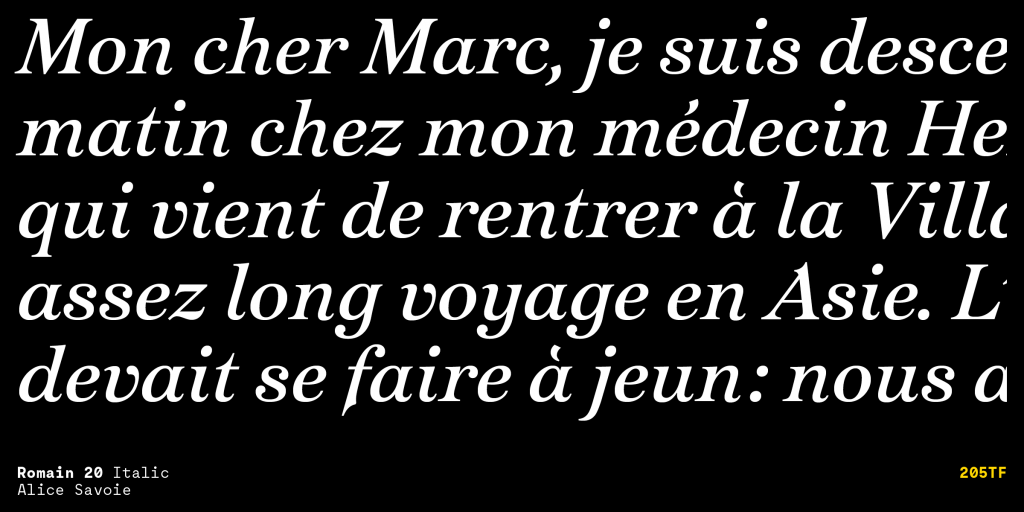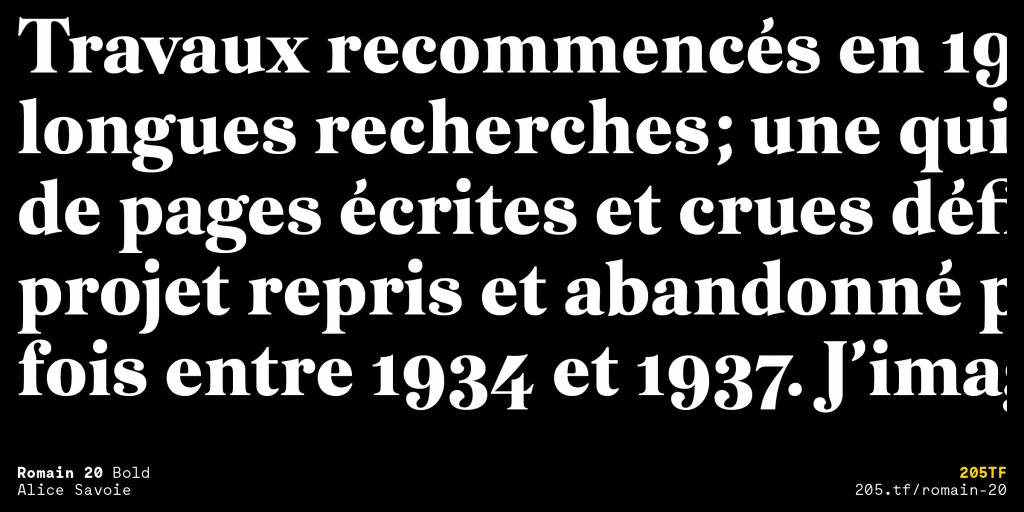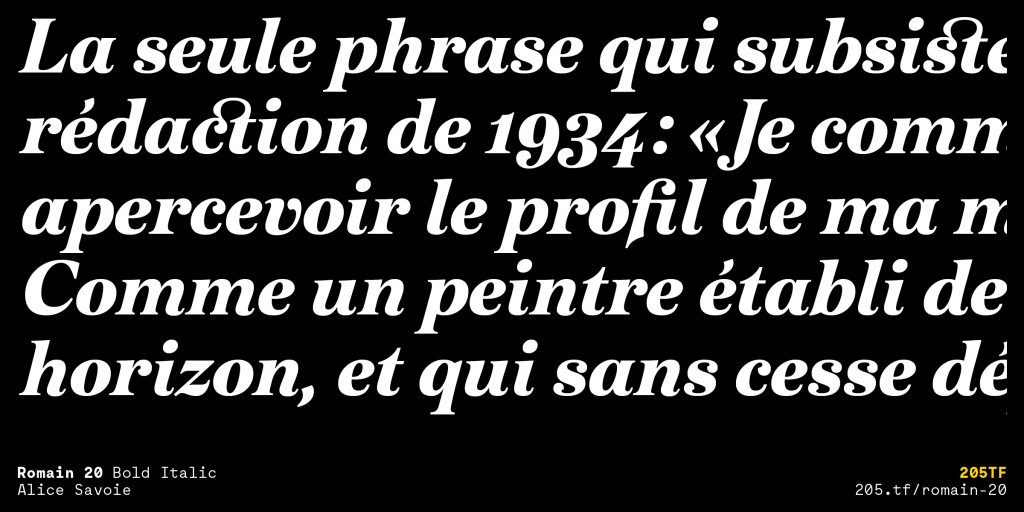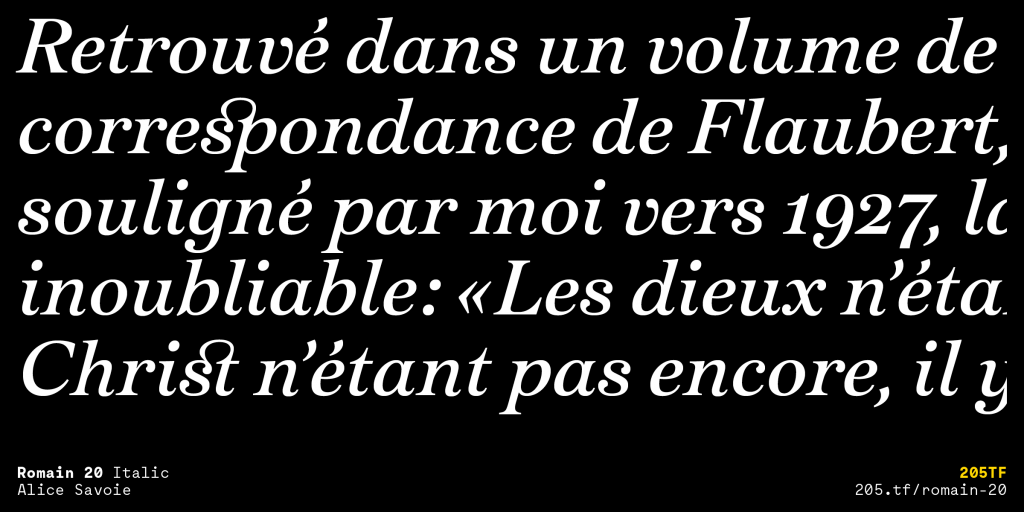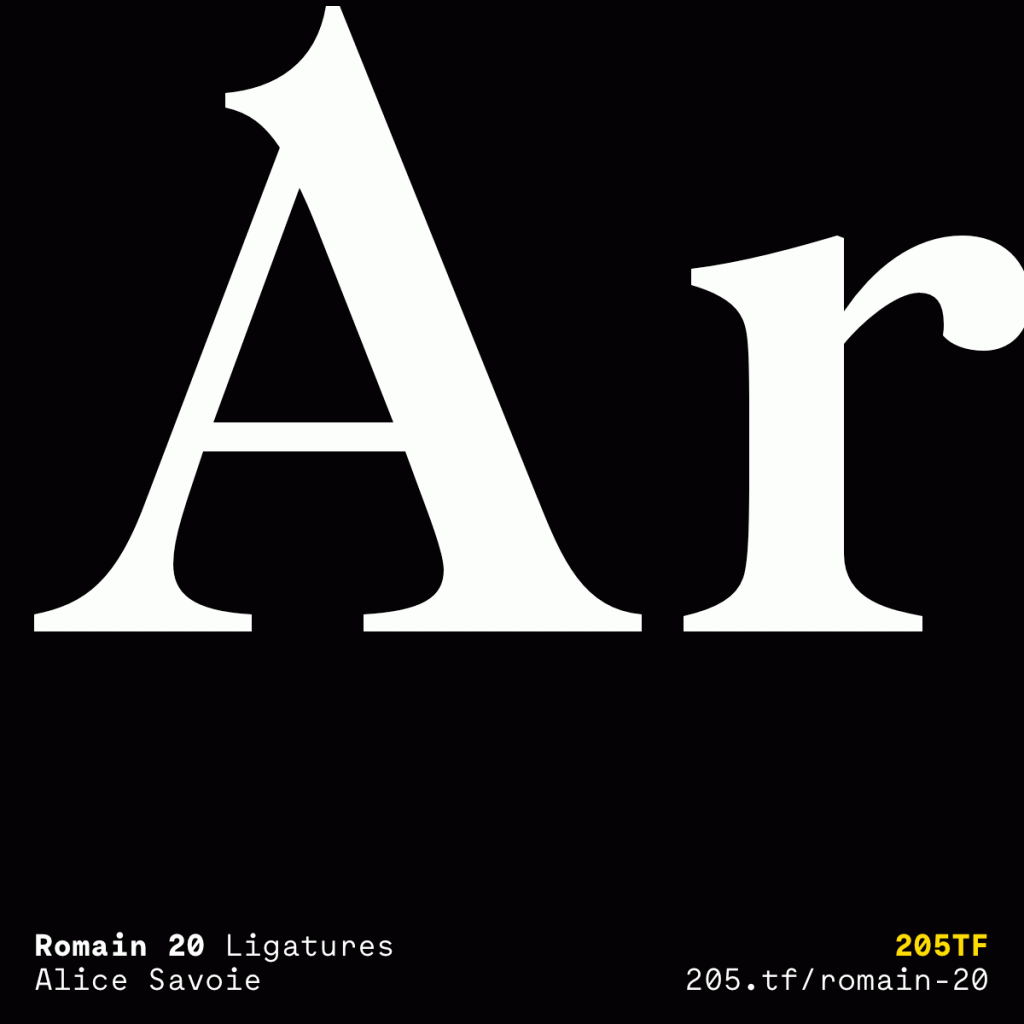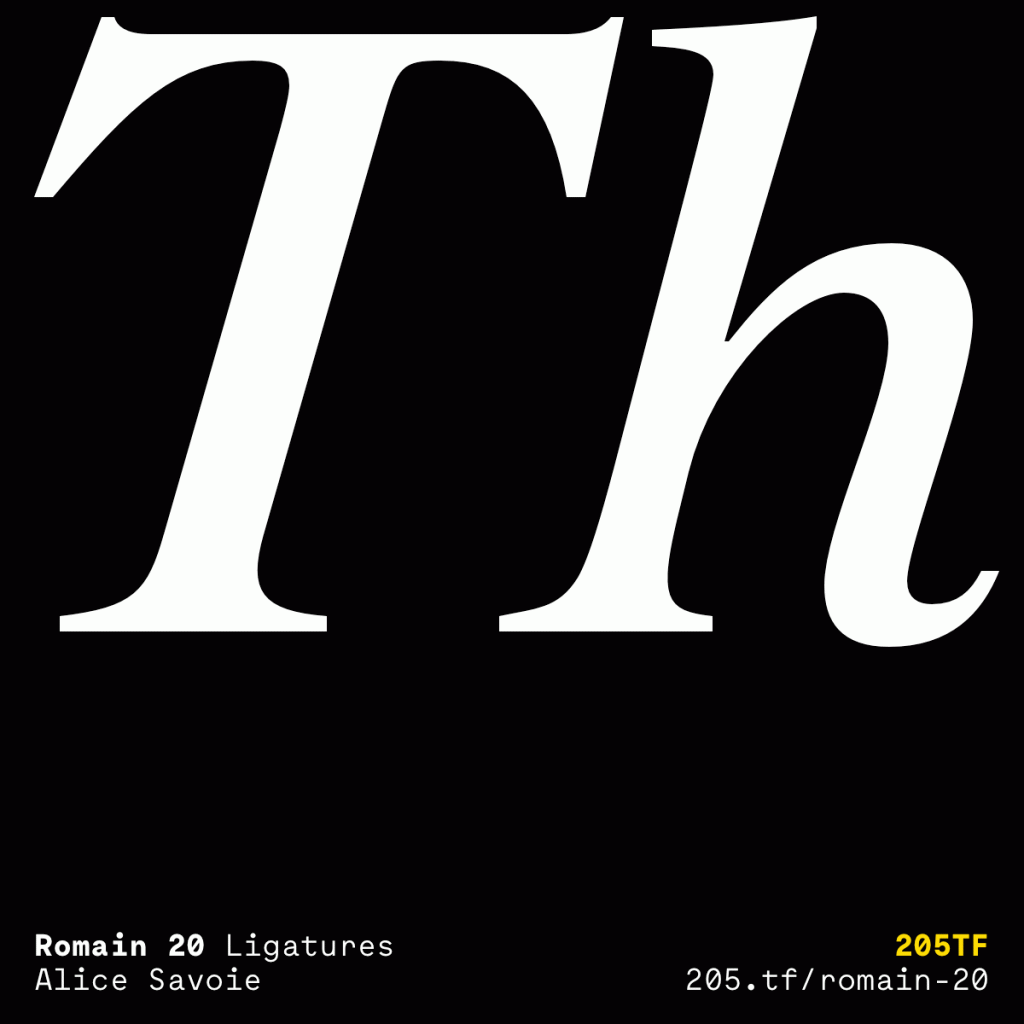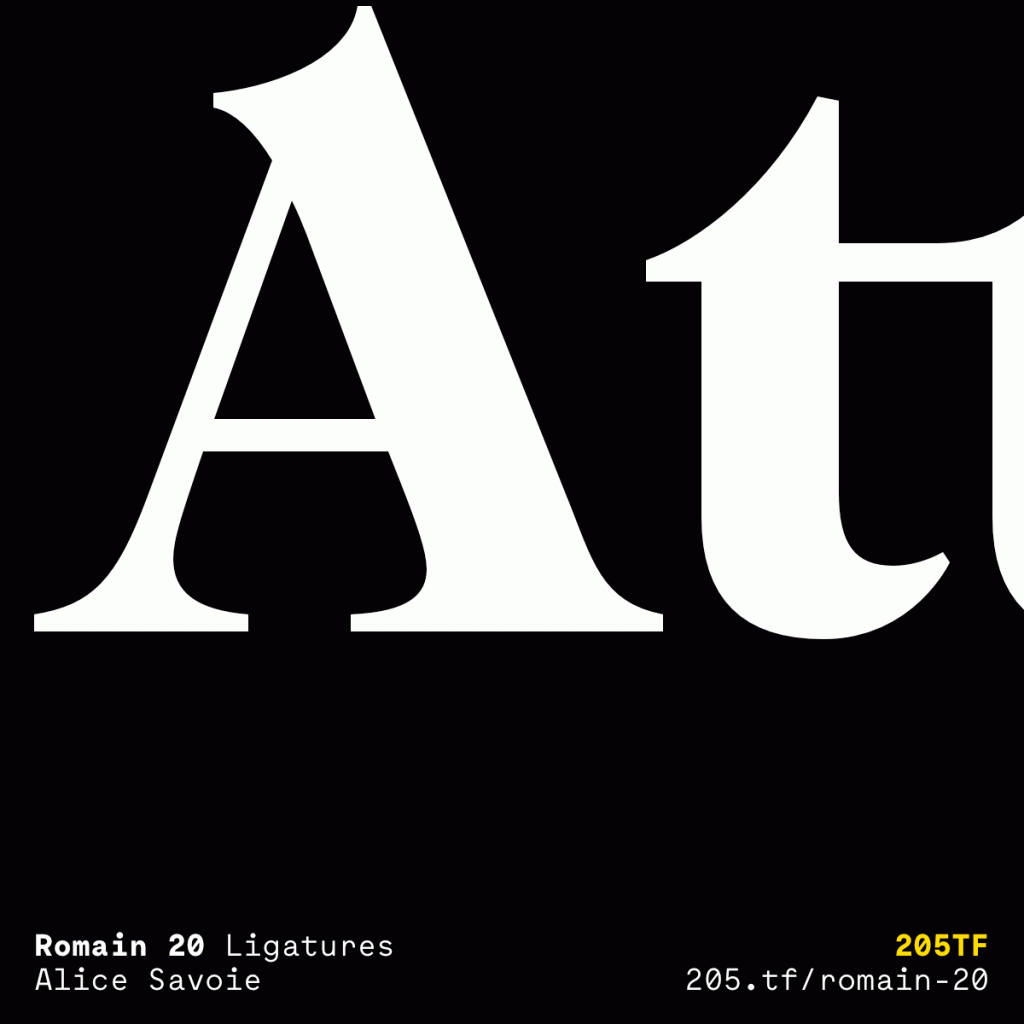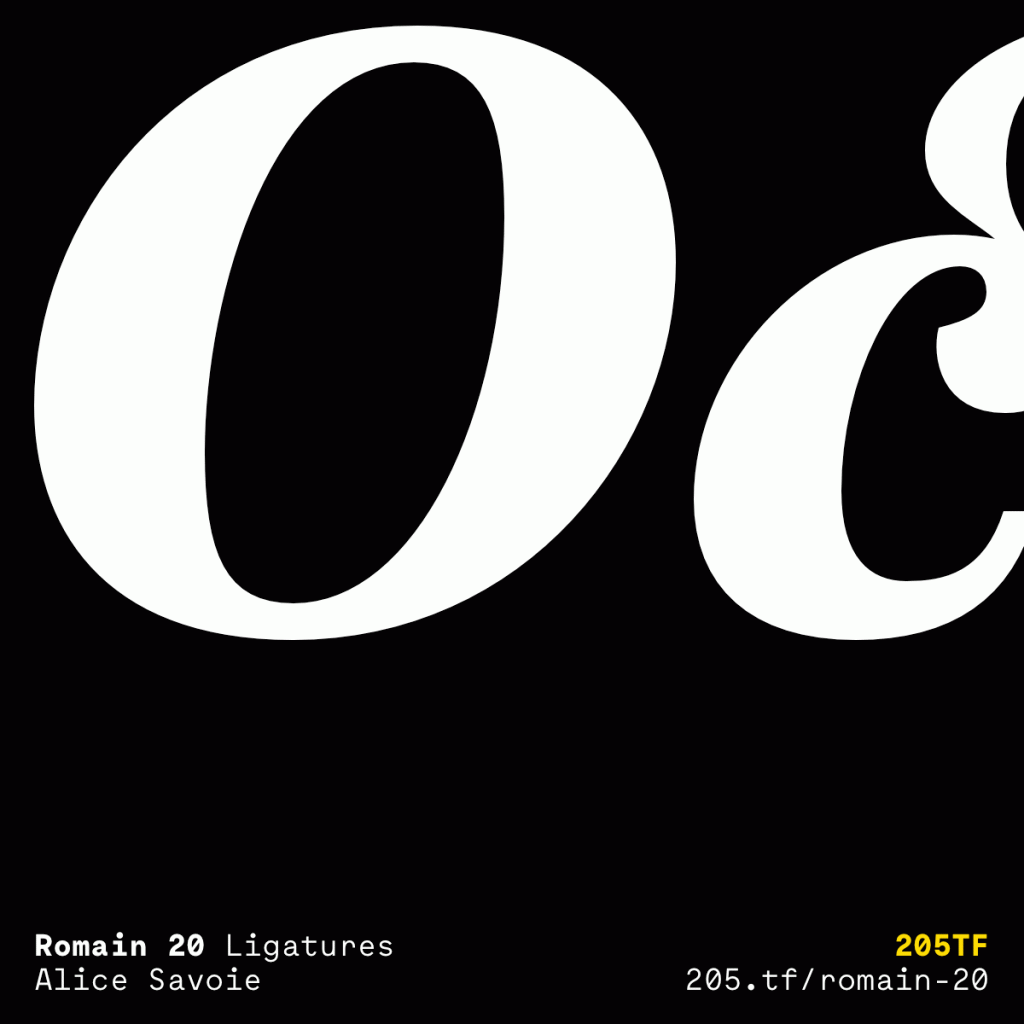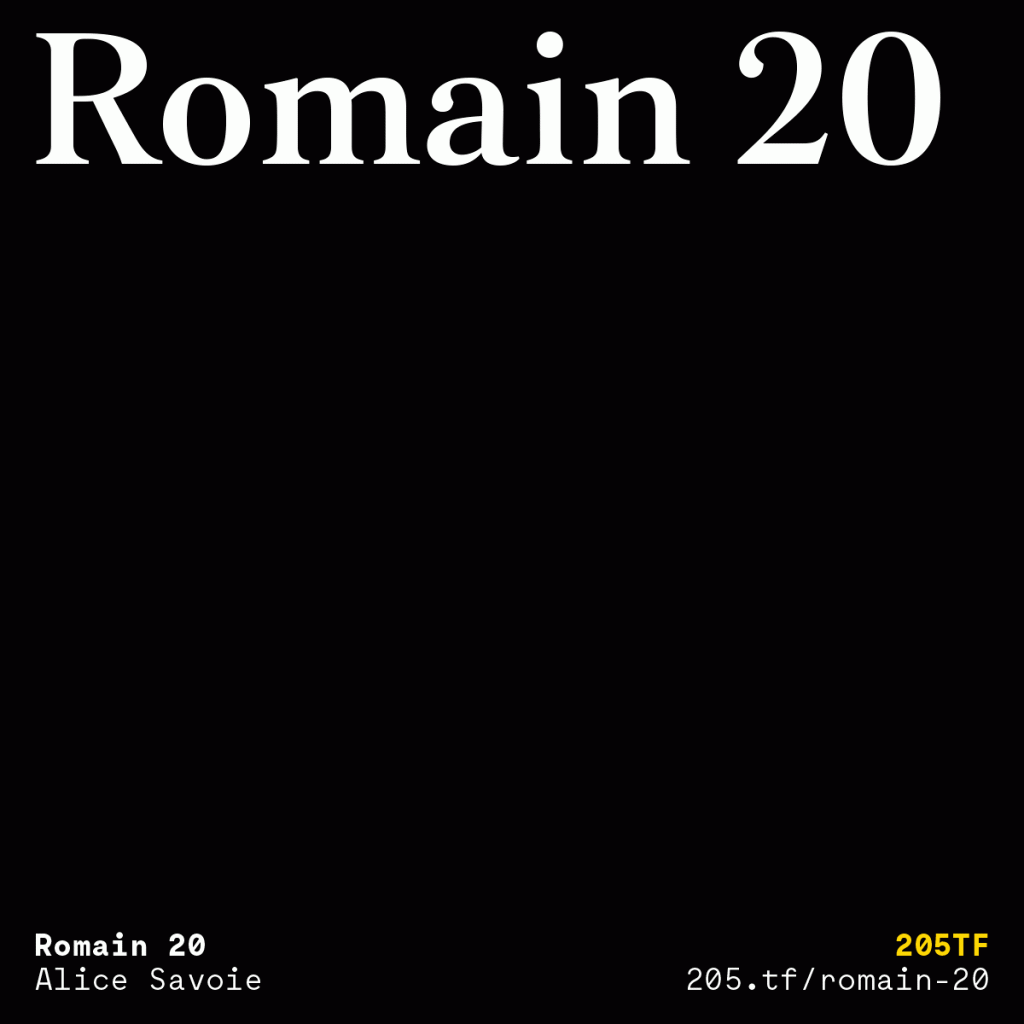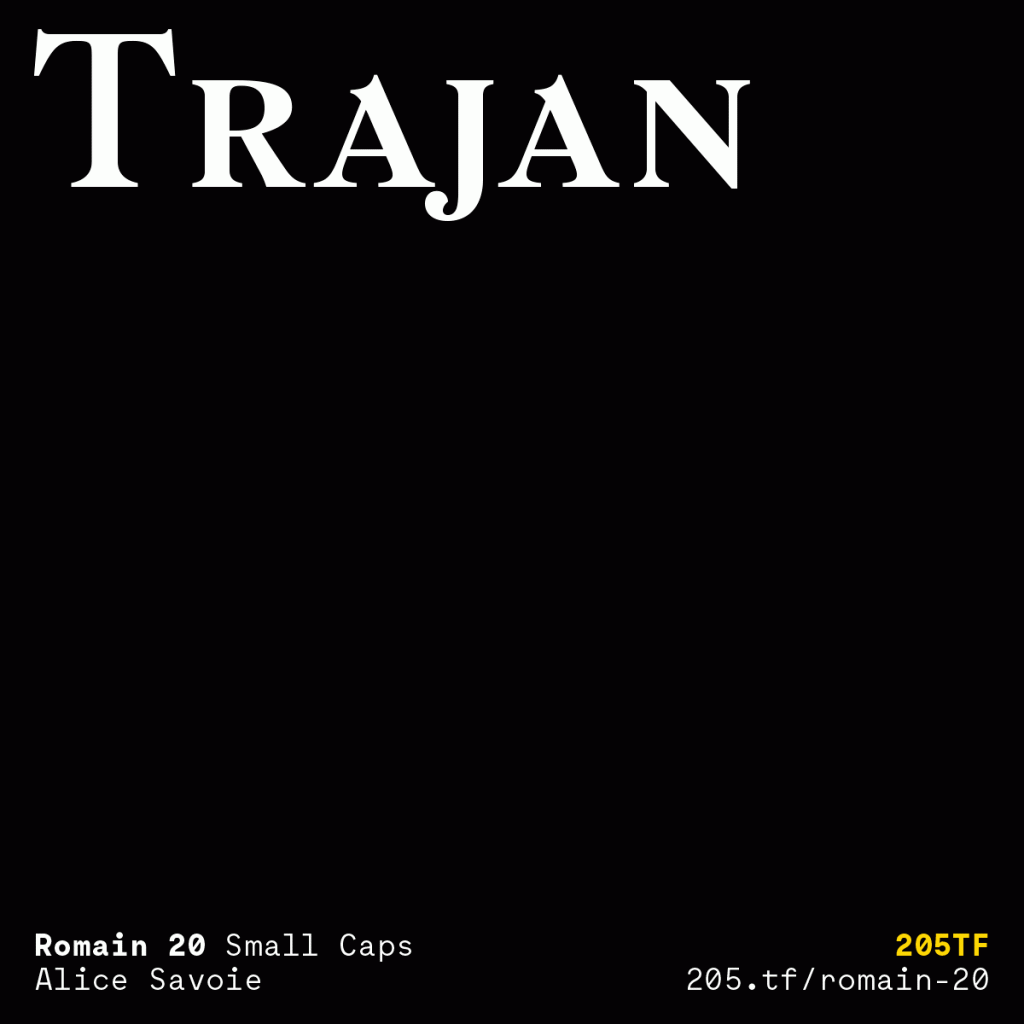
Name: Romain 20
Designer: Alice Savoie
Foundry: 205TF
Release Date: March 2020
Back Story: Classy serif revival font Romain 20, by independent type designer and researcher Alice Savoie, has been in the works for eight years now and has finally launched through type foundry 205TF. The idea for the font was sparked in 2011 when Savoie was working on her PhD thesis, using the collections at the Printing Museum in Lyon, for which she also worked on some exhibition projects. “This was a great opportunity to get to browse their collections and come across little-known gems,” says Savoie. One such gem was a metal typeface she discovered in a 1902 edition of the journal La Fonderie Typographique named Romain Vingtième Siècle, which was distributed by the French type foundry Fonderie Allainguillaume at the very beginning of the 20th Century.
Savoie was inspired to make a contemporary adaptation of this metal typeface having been “immediately seduced by its texture on the page,” according to 205TF. “I had previously developed an interest in French typefaces of that period,” adds the designer, “I was drawn to their Art Nouveau feel, and there are so many designs and foundries from the period that have been forgotten and deserve attention. Romain 20 was created initially as a revival of the roman and italic styles, but the designer went on to create an additional bold and bold italic to the family for greater versatility.
“There are so many designs and foundries from the period that have been forgotten and deserve attention.”
Her process involved studying high-res scans of the various text sizes, and from those she developed the regular and the italic forms. She then designed the digital versions using Robofont. Savoie worked with Lyon-based Mexican type designer Fátima Lazaro in the development and completion of the font, which was mastered by Roxane Gataud on behalf of 205TF.
Why’s it called Romain 20? Being based on Romain Vingtième Siècle, Savoie wanted the font name to maintain a reference to the original but be simplified for contemporary purposes, such as naming digital files (and she wanted it to be easier to pronounce in English). “I also liked the fact that it referred to 2020, the year of release for this first digital interpretation,” she says.
What should I use it for? The typeface was designed predominantly for editorial projects across books and magazines in both digital and print. “I would like to think that Romain 20 has some strong narrative qualities—that its design can contribute to some kind of storytelling and to transporting readers to different eras, different countries (early-20th Century France being one of them, but hopefully not the only one!),” says Savoie.
What are its distinguishing characteristics? The letterforms are typical of French typefaces created around the turn of the century and the organic, exuberant shapes that are associated with the aesthetics of the Art Nouveau movement. As such, Romain 20 has a subtle “friendliness,” as Savoie puts it. In Romain Vingtième Siècle, these more curvy, nature-inspired forms are shown in more subtle ways so as to not impair its functionality. “I liked its subtle roundness, its generous proportions and the vibration it created at text size,” says Savoie. She adds that the typeface has many attributes you’d see in “French publishing and jobbing work of the period,” such as soft bowl terminals that are balanced by sharp bracketed serifs.
“The typeface features a unique combination of flavors—it combines a certain idea of French elegance with a hint of Art Nouveau frivolity,” says the designer. “The generous and sturdy proportions of the regular and italic styles have been fine-tuned to be optimal at text size, while the bold variant can prove particularly efficient in display. The italic retains generous proportions, making it fairly comfortable to read in continuous settings. The bold is particularly dark.”
What other typefaces do you like to pair it with?
To connect Romain 20 with other typefaces that reference historical French typography, references, the Romain 20 combines perfectly with Molitor Display by Matthieu Cortat, Salmanazar by Juliette Collin, Kelvin Sans by Thomas Bouville, or Plaax by Damien Gautier.